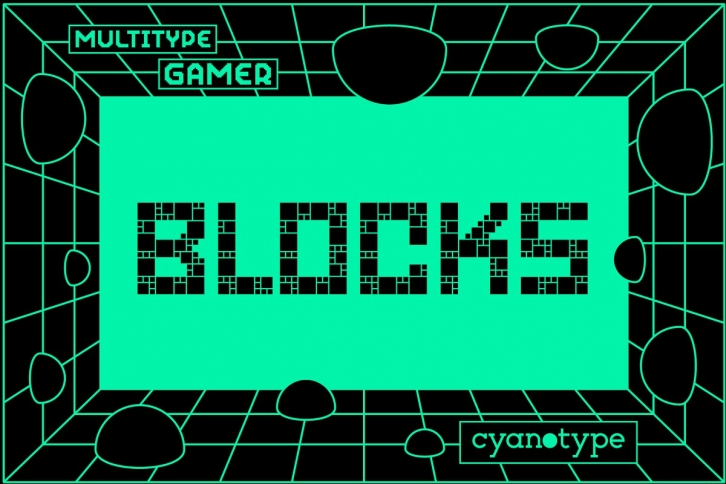
MultiType Gamer Blocks is an all display caps font inspired in retro gaming and arcades. Featuring three alternate sets, it offers support for Latin and Cyrillic characters and all the characters are PUA encoded.
MultiType Gamer Blocks works better at big sizes and display purposes such as branding, headlines, thumbnails, posters and animations. Have fun mixing all the styles in your projects.